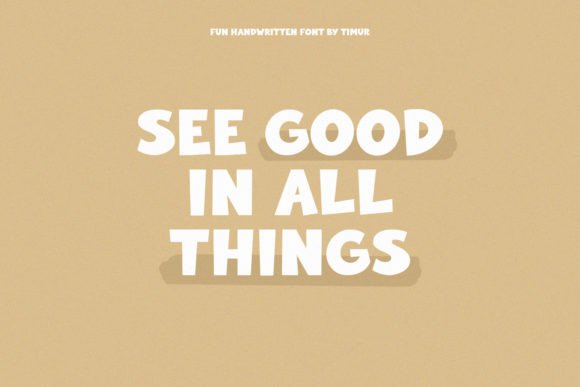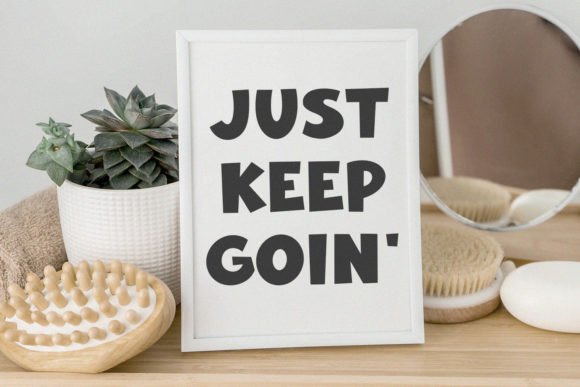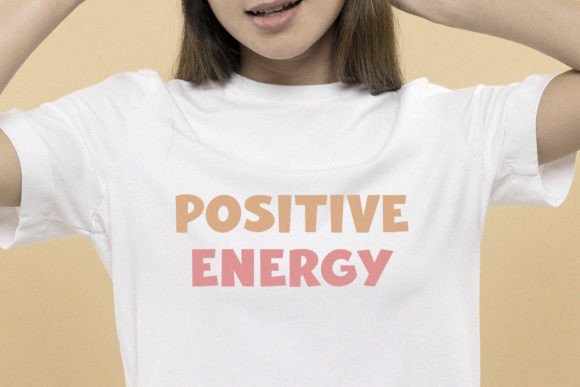
Bold Marker Font
Bold Marker – A unique display font created with great care, especially for you 😊 Bold Marker is perfect for product packaging, branding project, magazines, social media, weddings, or just used to express words above the background.